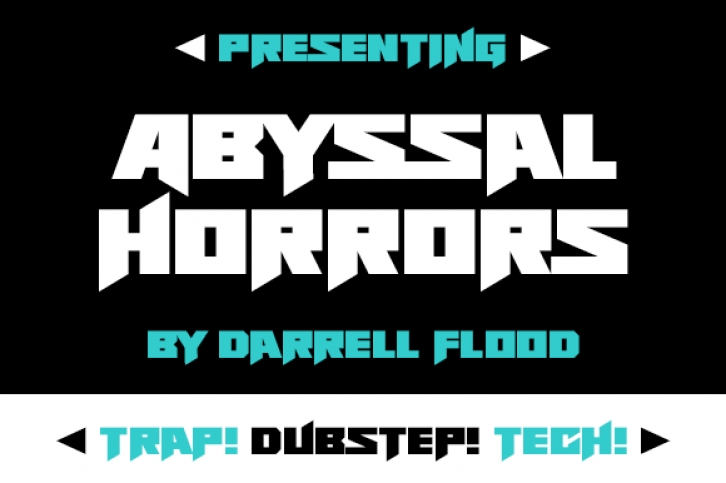
Abyssal Horrors is a bold, thick lettered and assertive display font. Add it to any design idea that you wish to highlight. The only limit is your imagination.